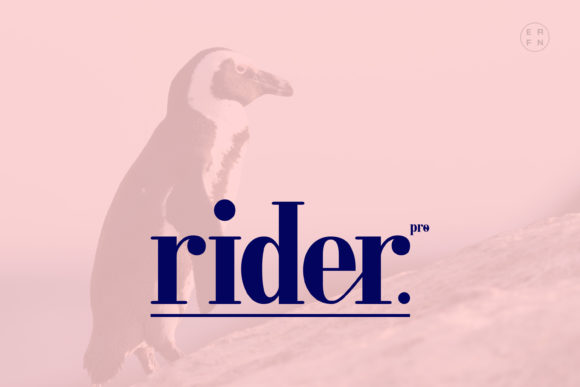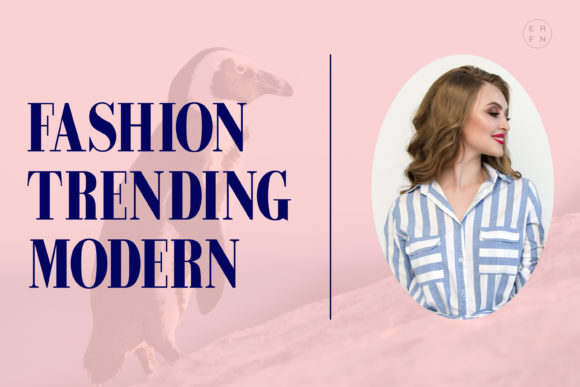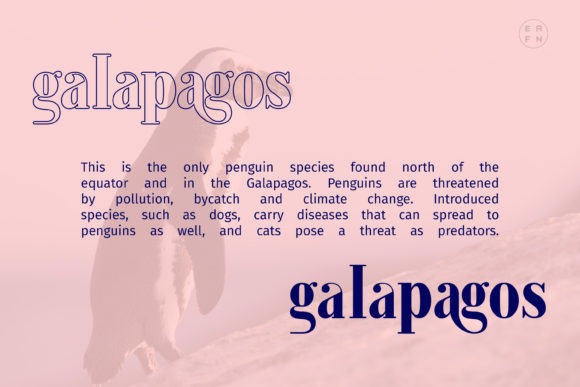
Introduction to Galapagos Font
Have you ever found yourself staring at a blank canvas, struggling to bring your creative vision to life? It’s a familiar feeling for many designers, but what if you had the perfect tool to help you break through that creative block? Enter the Galapagos Font, an elegant and thin lettered serif font that’s about to become your new best friend.
This versatile design resource is more than just a pretty face – it’s a high-quality addition to any project, from sleek website headers to elegant book covers. With its refined lines and transparent background, the Galapagos Font adds a touch of sophistication to any creative endeavor. And the best part? It’s a free download, waiting to be unleashed on your next project.
Key Features of Galapagos Font
- High-quality design resource perfect for creative projects, offering a unique and stylish touch.
- Includes a transparent background, allowing for seamless integration into various design elements.
- Features a high-resolution design, suitable for use in print and digital media, with a resolution of 300 DPI.
- Galapagos Font is a versatile design resource, ideal for use in various creative projects, from branding and advertising to digital art and graphics.
Honest Review: Galapagos Font
I recently stumbled upon the Galapagos Font, and I must say it’s a great addition to my design resource library. The font is perfect for any creative project that requires a unique and eye-catching aesthetic.
What works well: ✨ The Galapagos Font has a high-quality design that is both elegant and quirky at the same time. The transparent background allows for seamless integration with any background image or color, giving designers a lot of flexibility. I also appreciate the fact that it’s a free download, making it an excellent resource for designers on a budget.
Some limitations: ⚠️ The Galapagos Font may not be suitable for all types of projects, as it can be a bit too bold and overpowering. Additionally, the font may not work well with smaller text sizes, so designers may need to use it sparingly.
Overall impression: I’m thoroughly impressed with the Galapagos Font, and I would highly recommend it to designers looking for a unique and high-quality design resource. While it may have some limitations, it’s definitely worth checking out for any creative project.
How to Use Galapagos Font
The Galapagos Font is a high-quality design resource ideal for creative projects. It features a unique, stylish design and a transparent background, making it perfect for various applications.
Tips for Getting the Most Out of Galapagos Font
To get the most out of the Galapagos Font, use it in conjunction with other high-quality design resources. Experiment with different font sizes, colors, and styles to create a unique and eye-catching design.
The Galapagos Font is ideal for a variety of creative projects, including:
- Logos and branding
- Graphics and illustrations
- Websites and digital media